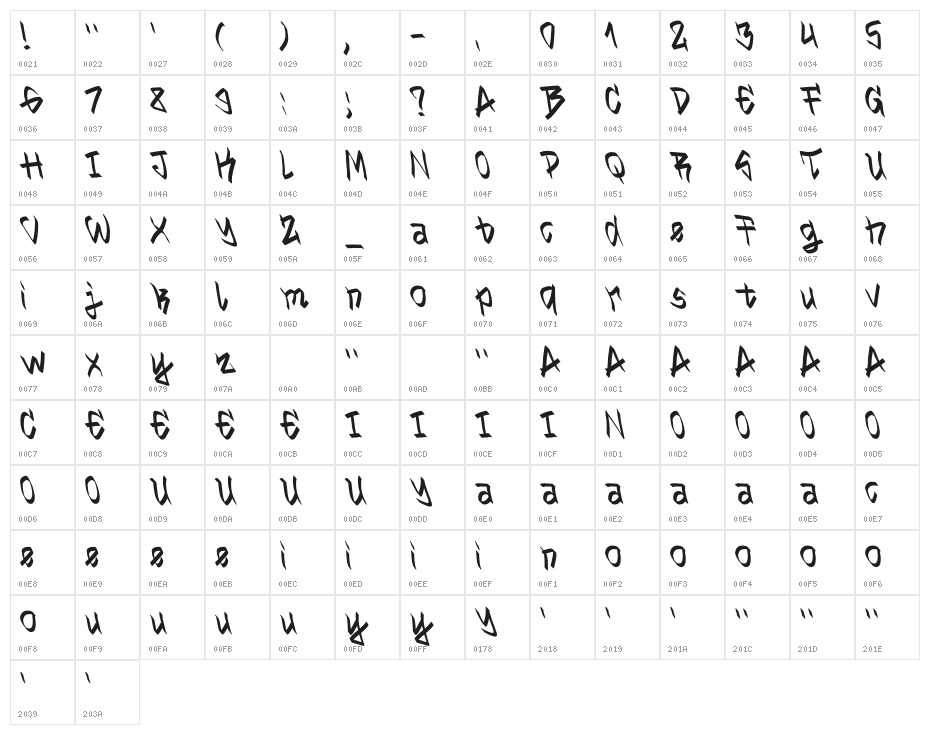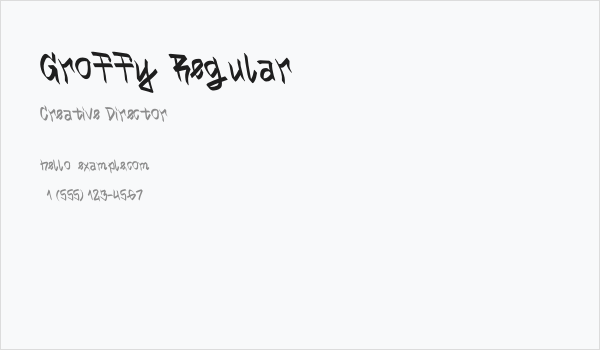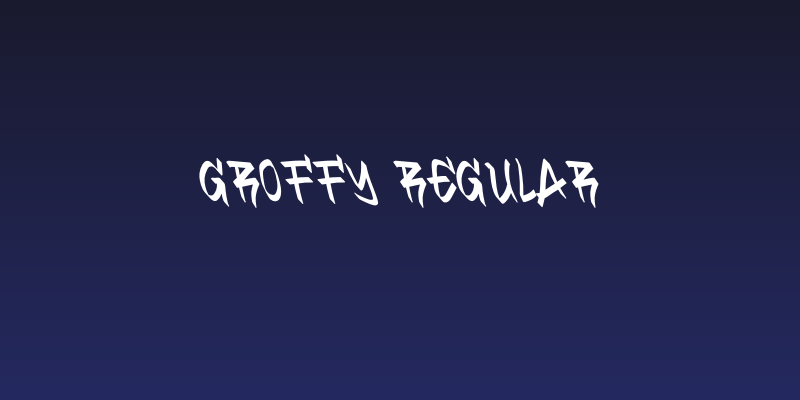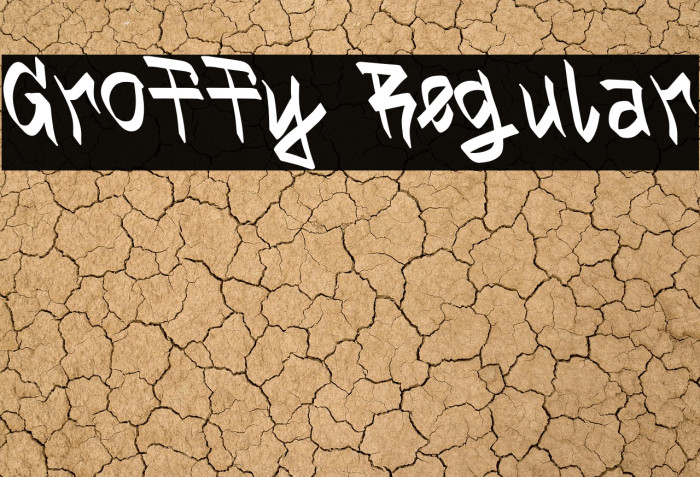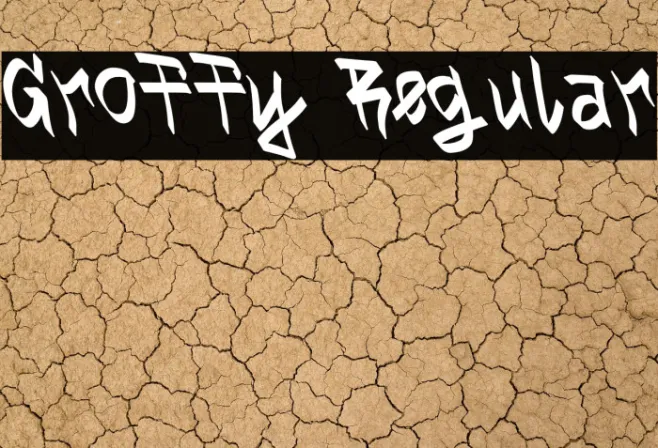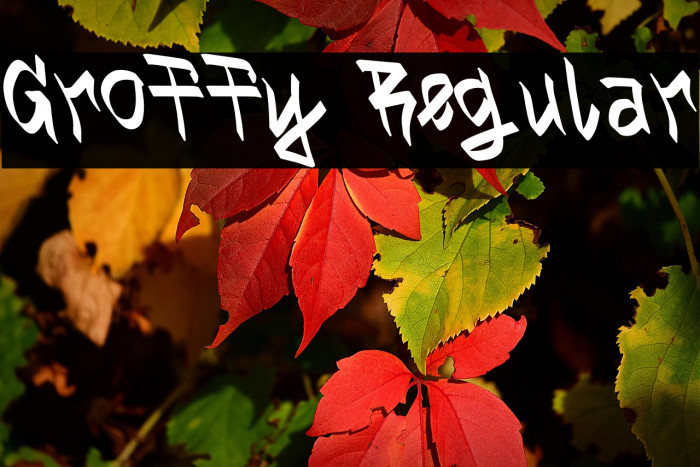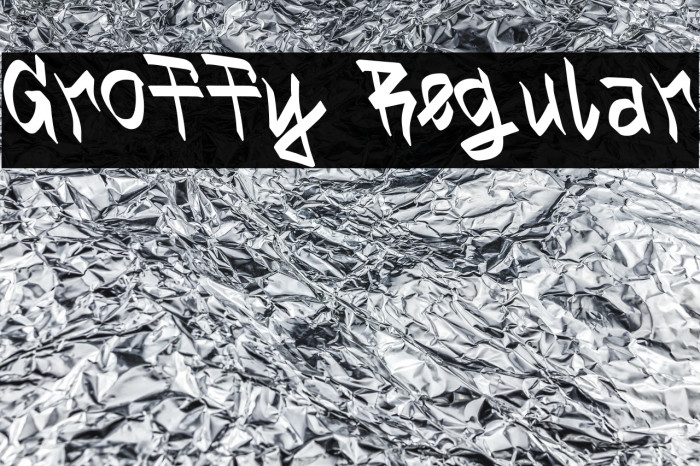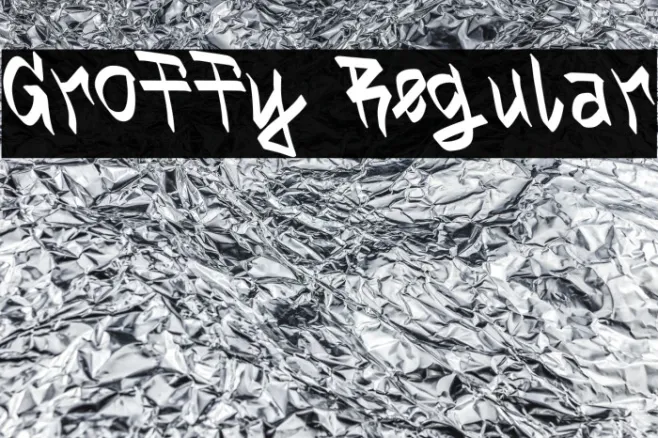
Groffy Regular Font
Groffy Regular Description
This font features a bold and dynamic style with sharp, angular lines and a graffiti-like appearance. The characters are irregular and have a hand-drawn quality, giving them a unique and edgy look. The uppercase and lowercase letters maintain a consistent style, with exaggerated curves and points that create a sense of movement and energy. The numbers and special characters follow the same design principles, ensuring a cohesive appearance across all glyphs. This font is ideal for projects that require a bold and unconventional aesthetic.
| Overall Style | Modern, Urban |
| Proposed Projects | Ideal for street art designs, edgy branding, music album covers, and urban-themed posters. |